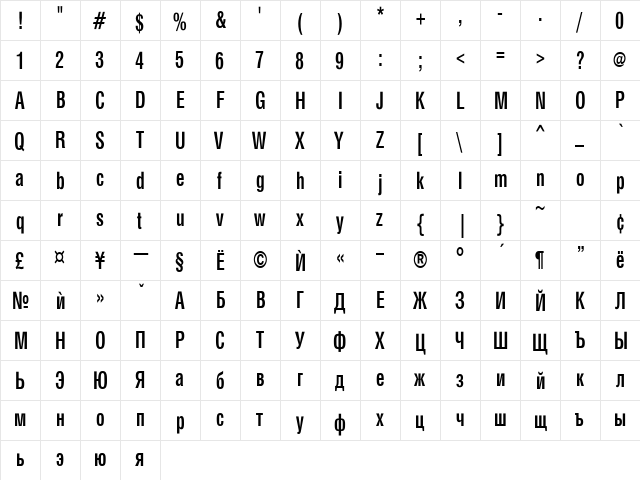
HebarDoubleCond Bold
Design Context for HebarDoubleCond Typeface
HebarDoubleCond takes a measured approach to typography — its balanced proportions and neutral character make it a reliable workhorse for both digital and print work. The heavy weight commands attention and anchors typographic hierarchies. The condensed width makes it efficient for tight spaces without sacrificing legibility.